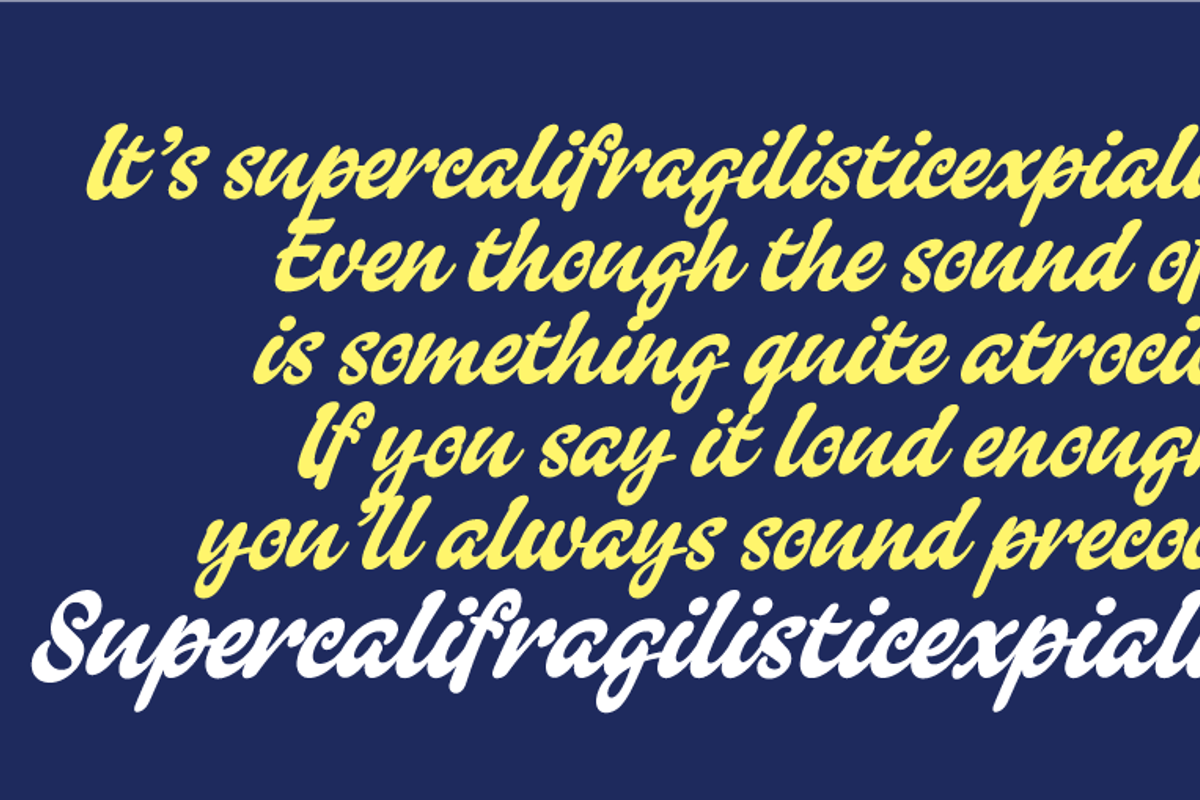
Falcon Script
Falcon Script is a casual brush script font designed by Alan Meeks. Its curly letterforms give it a playful and informal feel, making it suitable for branding, display text, and invitations.